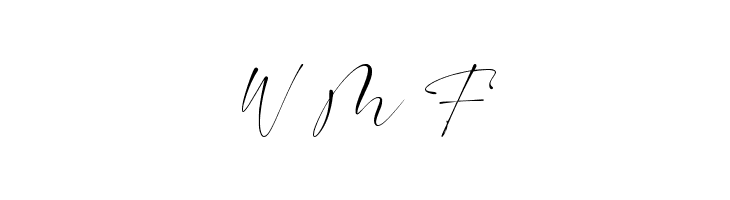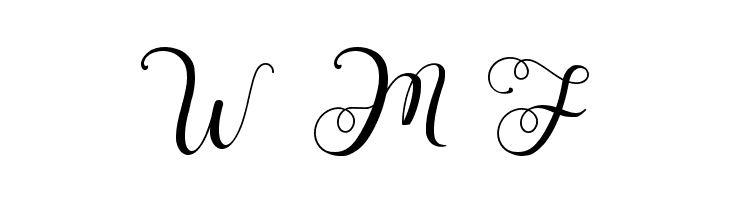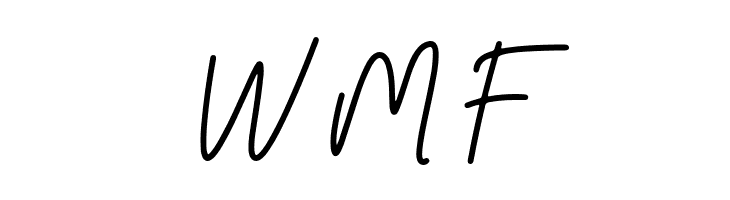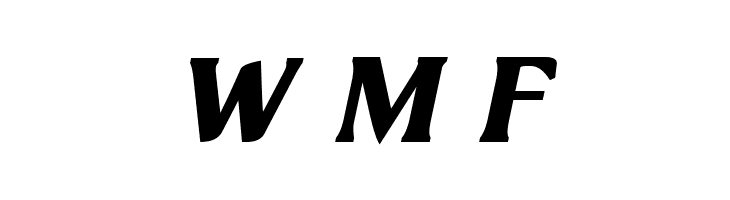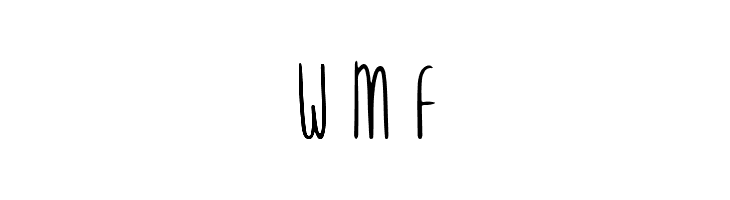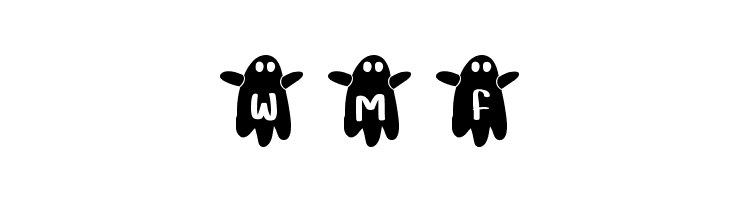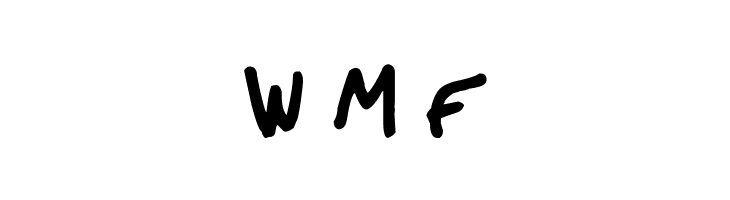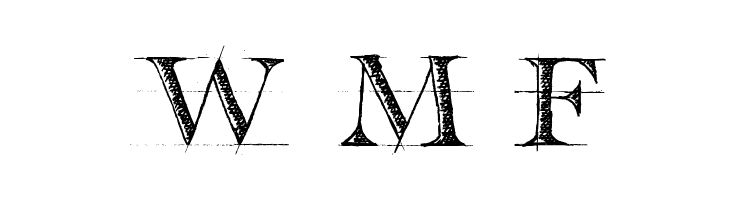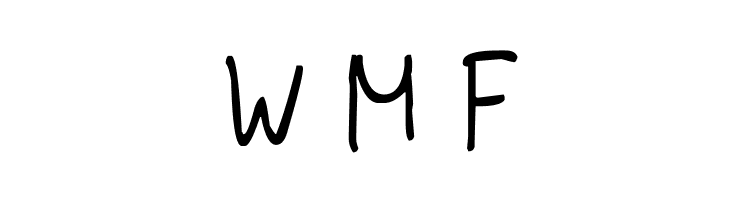
A bold, italicized font with high contrast and a hand-crafted feel.
An elegant, cursive font with flowing, intricate strokes.
A playful, casual handwritten font with smooth, flowing lines.
A hand-drawn, sketch-style font with textured outlines.
An elegant script font with intricate swirls and high contrast strokes.
A playful, casual handwritten font with smooth, flowing lines.
A playful handwritten font with tall, narrow letterforms and a casual style.
A playful and casual handwritten font with fluid, connected strokes.
A playful, ghost-themed decorative font perfect for Halloween projects.